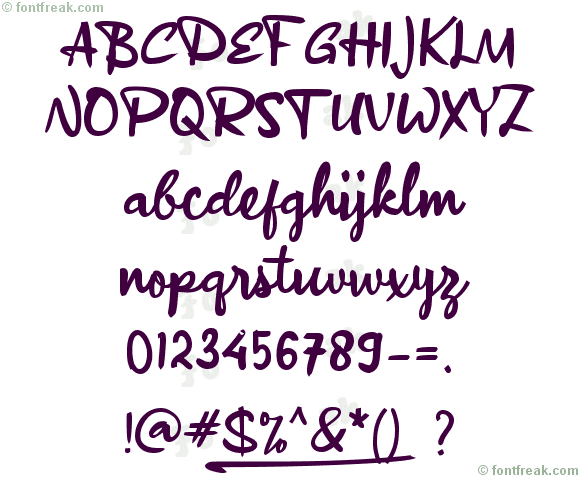
Affirmation_
About Affirmation_
Affirmation_ by Wahyu Eka Prasetya is a captivating display font that effortlessly blends modern aesthetics with a touch of elegance. This font features a unique handwritten style, characterized by its fluid strokes and artistic flair. The stroke weight is predominantly consistent, providing a harmonious look while maintaining enough contrast to catch the eye. The spacing is well-balanced, allowing for clear readability, which is essential in various design contexts.
This font is particularly versatile and can be employed in a range of creative applications. It shines in wedding invitations, where its graceful curves can evoke feelings of love and celebration. Additionally, Affirmation_ is ideal for branding projects, especially for small businesses looking to convey a personal touch. Its artistic nature makes it a perfect choice for restaurant menus, where it can elevate the dining experience by adding a sophisticated flair. Furthermore, this font can enhance social media graphics, allowing content creators to craft visually appealing posts that stand out in crowded feeds.
The target audience for Affirmation_ includes graphic designers who seek unique typographic solutions, small business owners aiming for an engaging brand identity, and content creators wanting to add a personal touch to their digital presence.
What sets Affirmation_ apart is its ability to convey emotion through typography. The fluidity and warmth of the handwritten style make it not just a font but a visual statement. With the Affirmation_ font free download option, it becomes accessible for anyone looking to enhance their design projects with a touch of elegance and creativity. This font invites users to express themselves in a way that feels both personal and professional, making it a standout choice in the realm of contemporary typography.